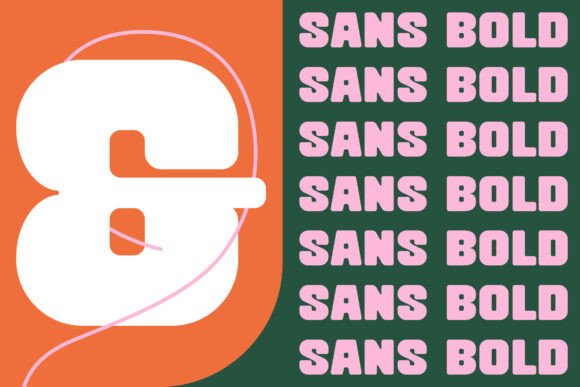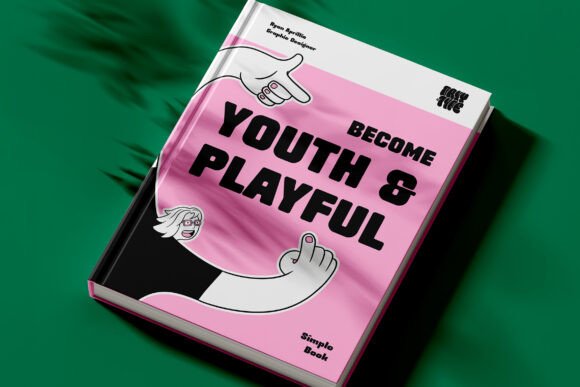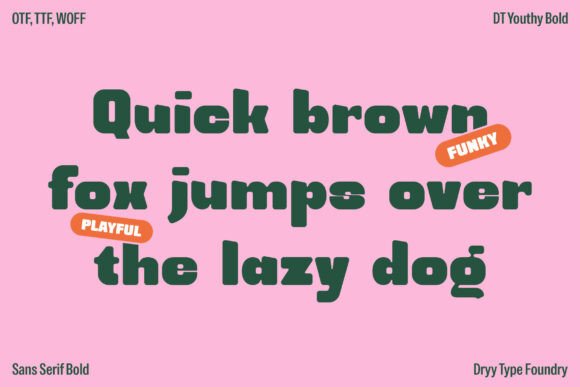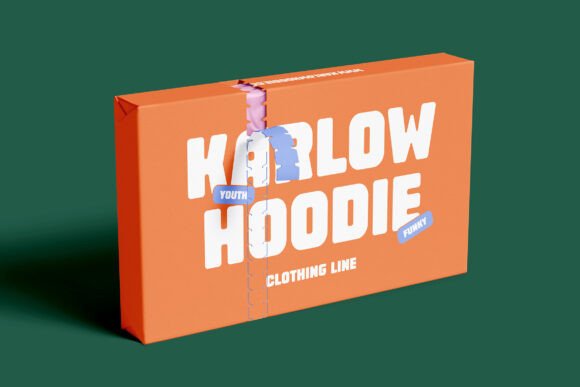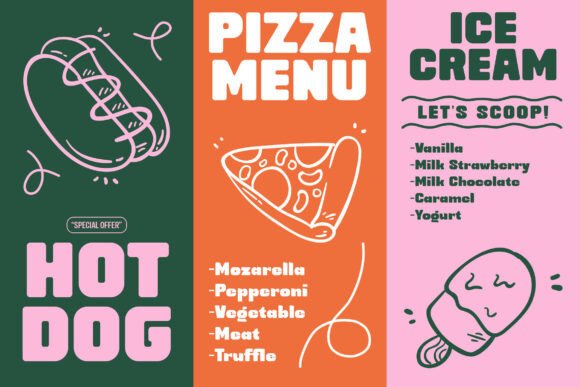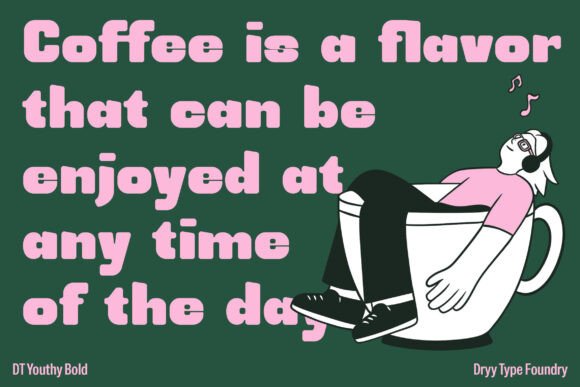
Introduction to Dt Youthy Bold Font Font
Fonts play a crucial role in design, and the Dt Youthy Bold Font font is a typeface that brings both character and versatility to any project. Whether you’re working on a branding project, a website, or a print design, the Dt Youthy Bold Font font offers a unique style that can elevate your work.
Youthy Bold is a font inspired by the spirit of youth, so that in every form it looks very playful and dynamic.
No matter the topic, this font will be an incredible asset to your fonts’ library, as it has the potential to elevate any creation .
Key Features of Dt Youthy Bold Font Font
Why Choose Dt Youthy Bold Font Font?
The Dt Youthy Bold Font font is more than just a typeface – it’s a design tool that helps you communicate your message with style and clarity. Its unique character set and versatile design make it suitable for a wide range of applications, from elegant invitations to bold headlines.
With its carefully crafted letterforms and balanced proportions, the Dt Youthy Bold Font font ensures readability and visual appeal across all mediums.
What makes Dt Youthy Bold Font font special?
The Dt Youthy Bold Font font stands out with its unique design, exceptional readability, and versatility across various design applications.